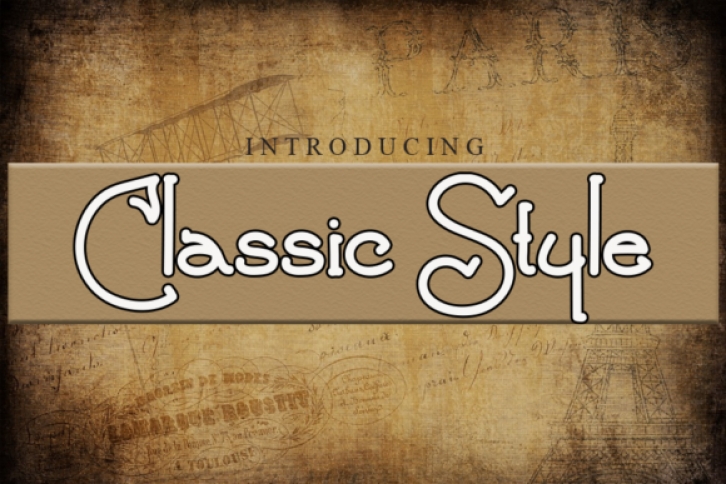
Classic is an elegant and bold script font. Fall in love with its incredibly versatile style and use it to create gorgeous wedding invitations, beautiful stationary art, eye-catching social media posts, and much more!